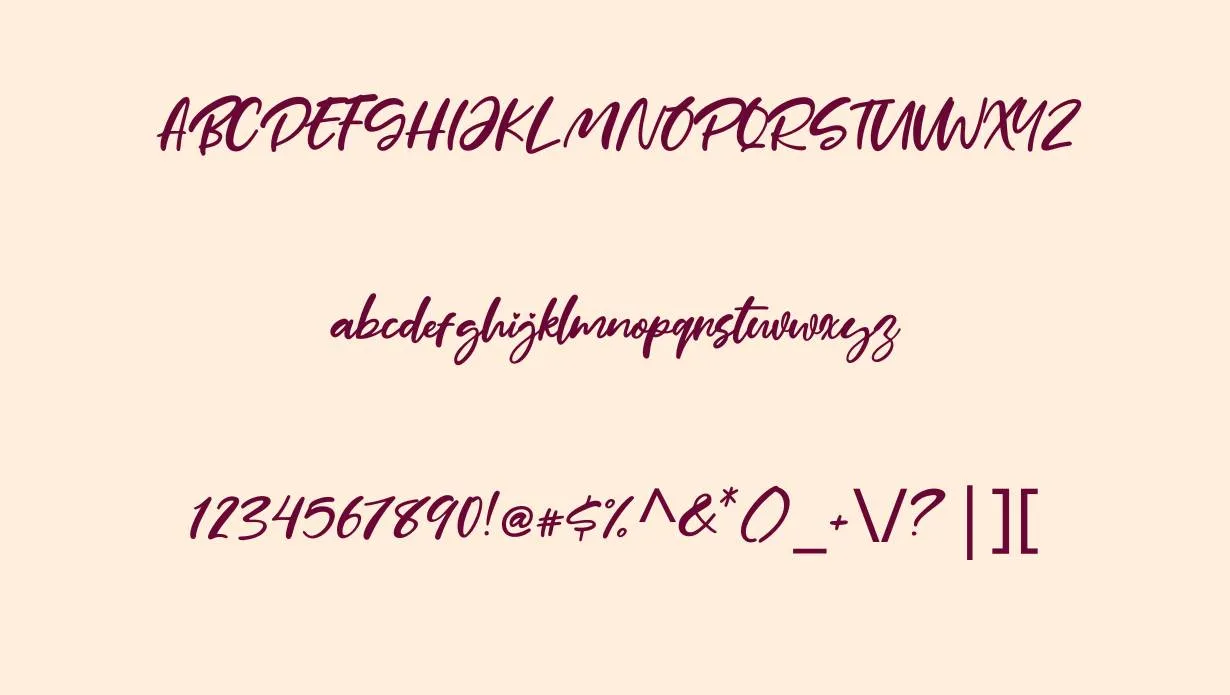
The Mothers Day Font adds a heartwarming and sentimental touch to your designs, perfect for celebrating the special women in our lives. Its gentle characters convey love and appreciation.
| Name | Mothers Day Font |
| Designer | Khurasan |